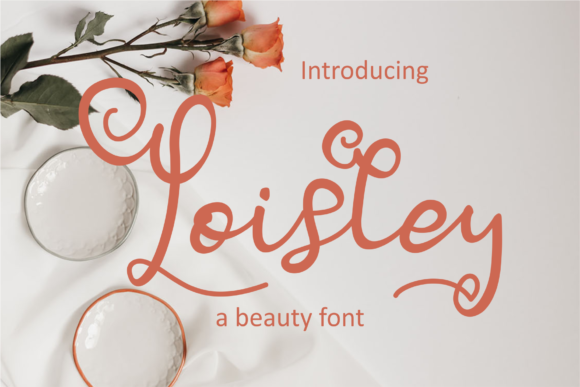
Unleash the enchanting allure of Loisley, a captivating script font that weaves a tapestry of romance and charm. Prepare to be swept off your feet by its enchanting swashes and graceful ligatures, a testament to its remarkable versatility.
With Loisley at your fingertips, ordinary greetings transform into extraordinary expressions of love and affection. Imagine the magic it will bring to your New Year's cards, each stroke imbued with warmth and heartfelt sentiment. Its enchanting curves and intricate details will dance across the page, captivating the hearts of your loved ones.
Loisley is more than just a font; it's an invitation to express yourself with creativity and flair. Whether you're crafting heartfelt messages, designing alluring invitations, or adding a touch of elegance to your branding, Loisley will elevate your words and make your designs shine.
So why wait? Embrace the beauty of Loisley today and let its charm ignite your imagination. Each letter is a stroke of brilliance, ready to transform your creative endeavors into unforgettable masterpieces. Fall in love with Loisley, and let your designs blossom with newfound allure and enchantment.